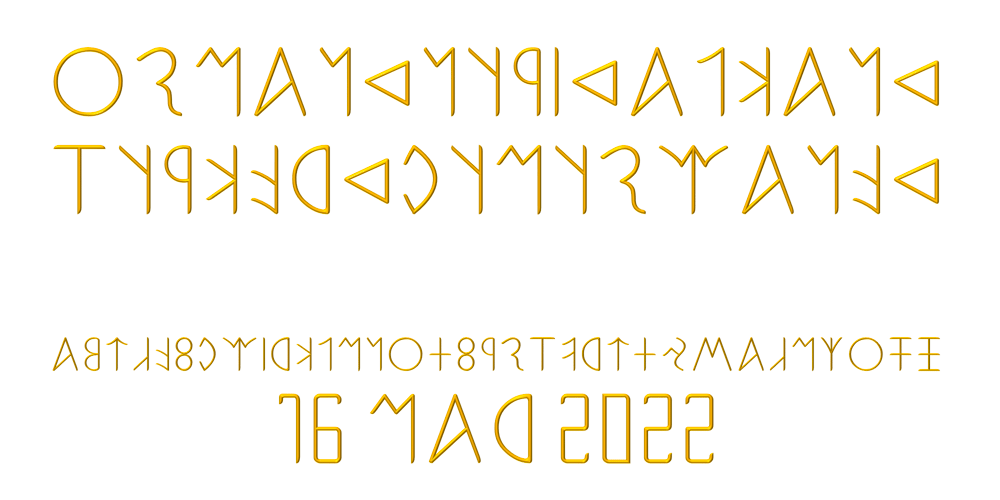
Ongunkan Lydian Font Family was designed by Osman Nuri ALKAN and published by Runic World Tamgacı. Ongunkan Lydian contains 1 styles and family package options. Lydia (Lydian: 𐤮𐤱𐤠𐤭𐤣𐤠, Śfarda; Aramaic: Lydia; Greek: Λυδία, Lȳdíā; Turkish: Lidya) was an Iron Age kingdom of western Asia Minor located generally east of ancient Ionia in the modern western Turkish provinces of Uşak, Manisa and inland Izmir. The ethnic group inhabiting this kingdom are known as the Lydians, and their language, known as Lydian, was a member of the Anatolian branch of the Indo-European language family. The capital of Lydia was Sardis.The Kingdom of Lydia existed from about 1200 BC to 546 BC. At its greatest extent, during the 7th century BC, it covered all of western Anatolia. In 546 BC, it became a province of the Achaemenid Persian Empire, known as the satrapy of Lydia or Sparda in Old Persian. In 133 BC, it became part of the Roman province of Asia.Lydian coins, made of silver, are among the oldest coins in existence, dated to around the 7th century BC.